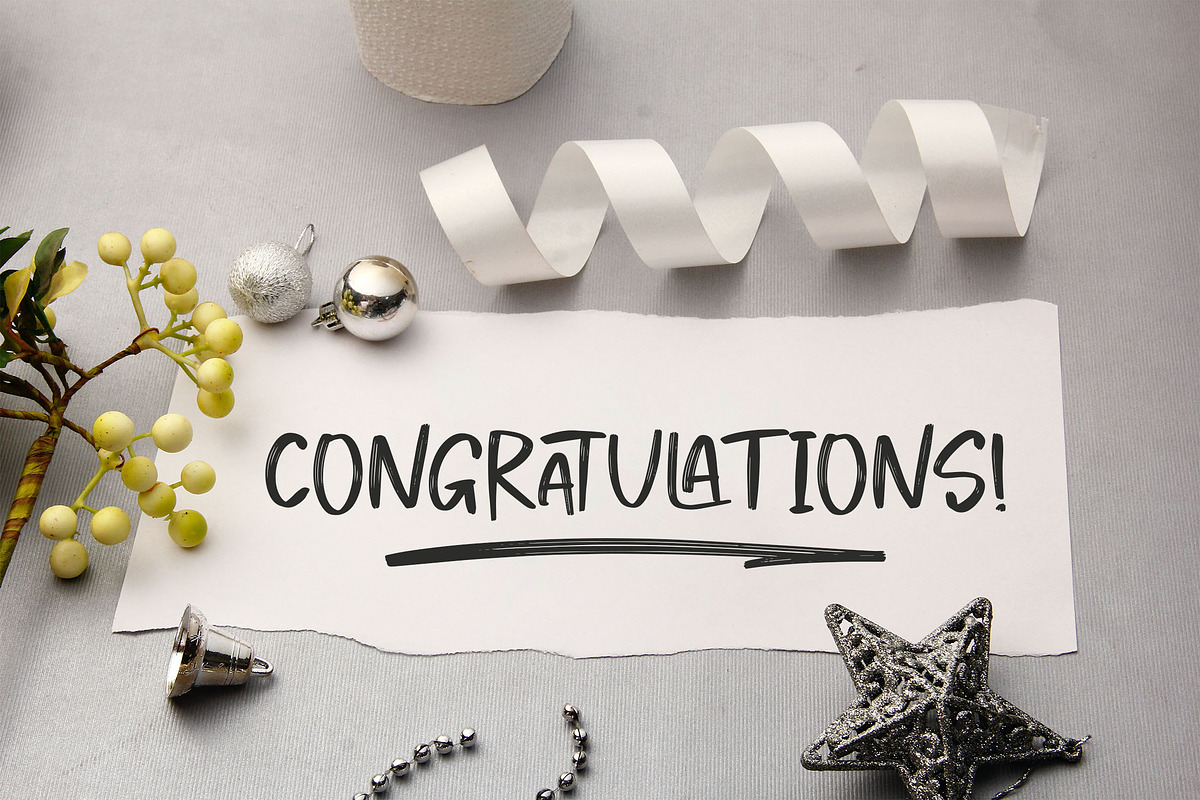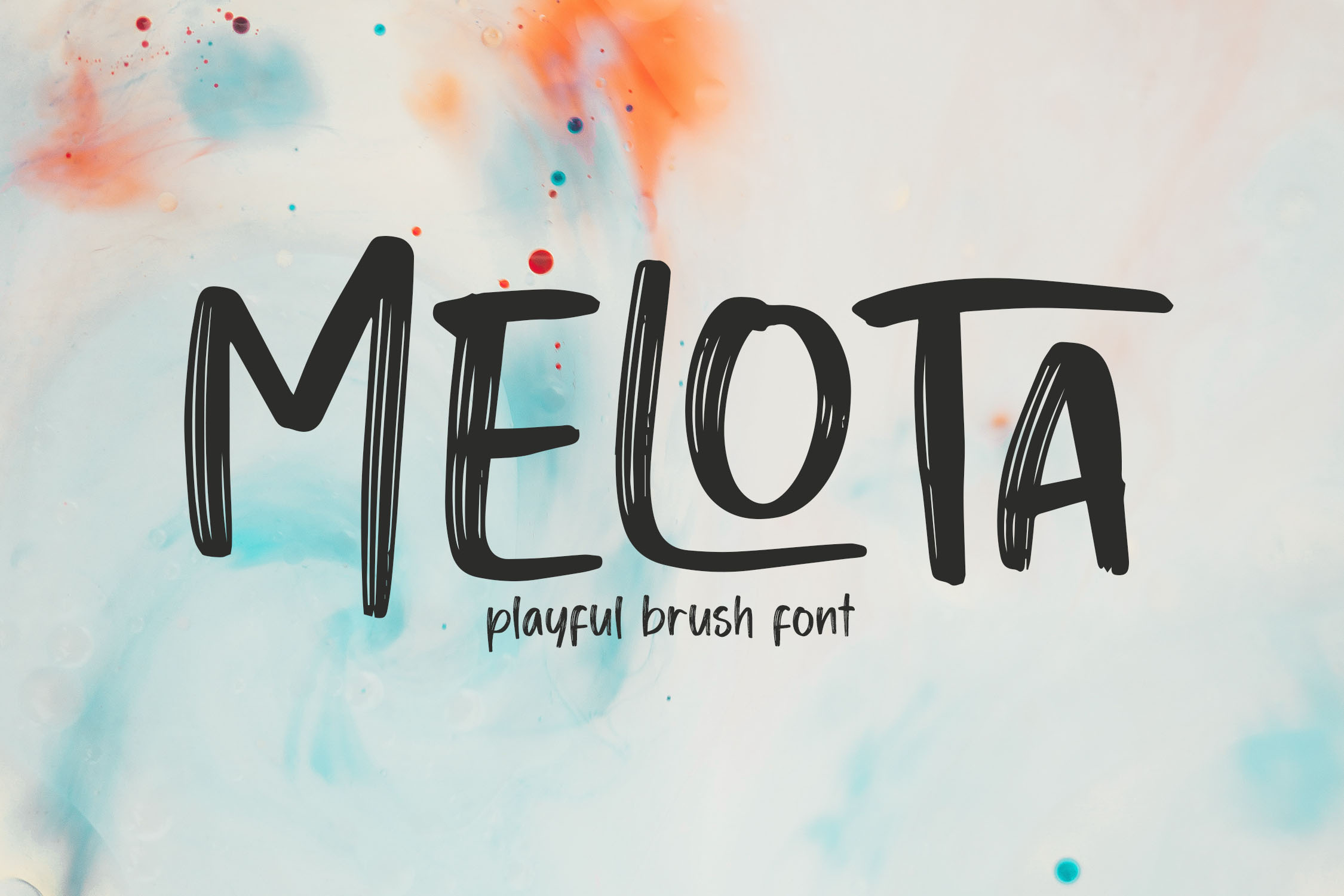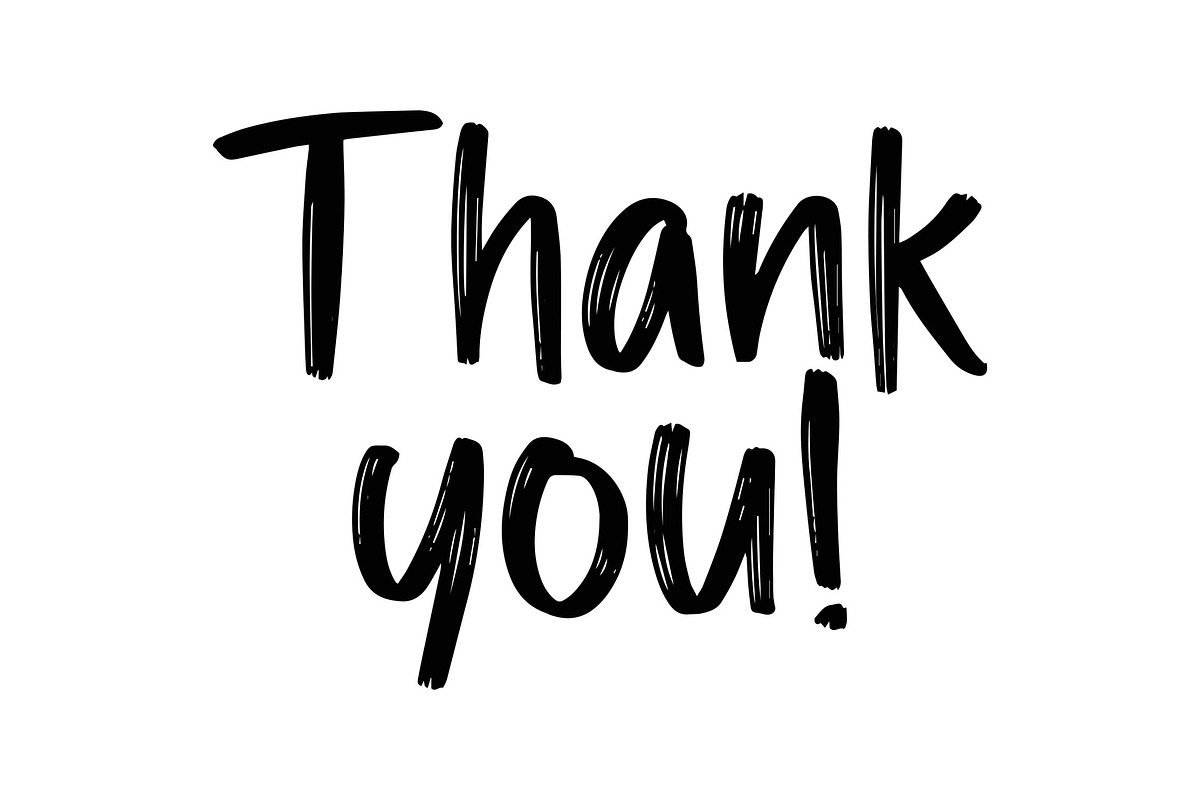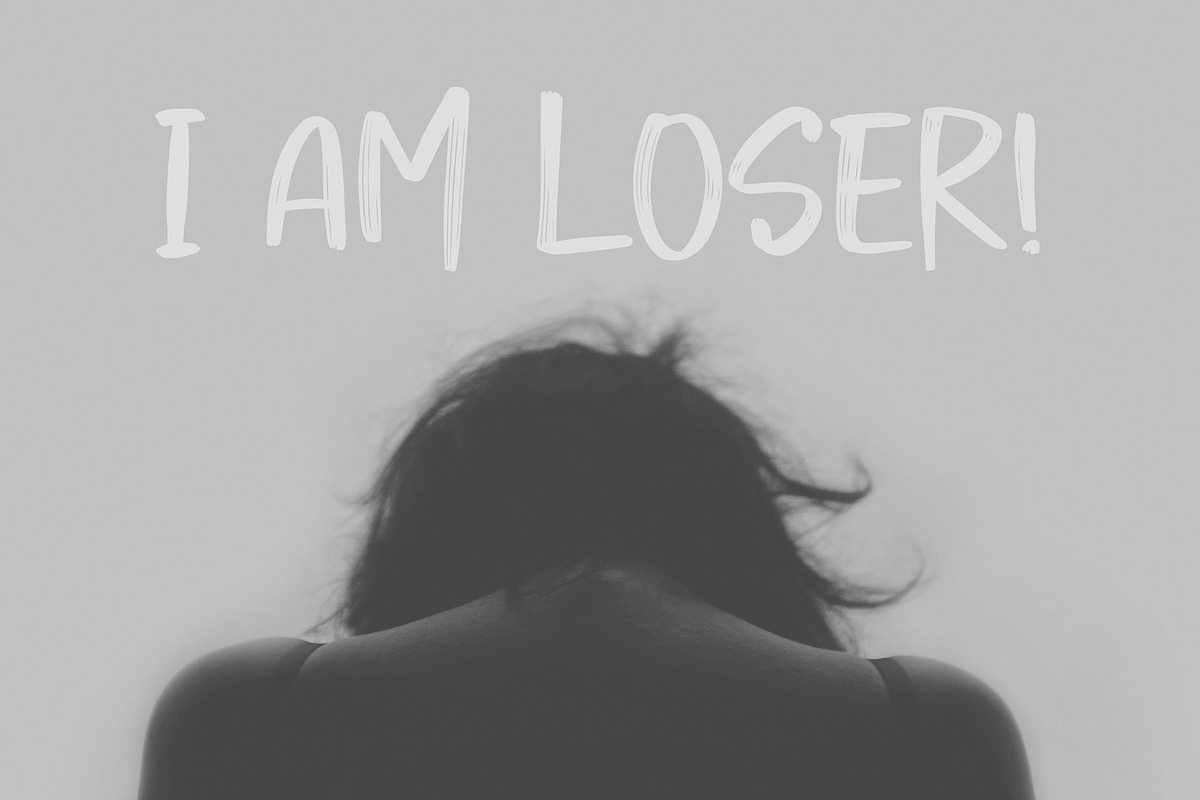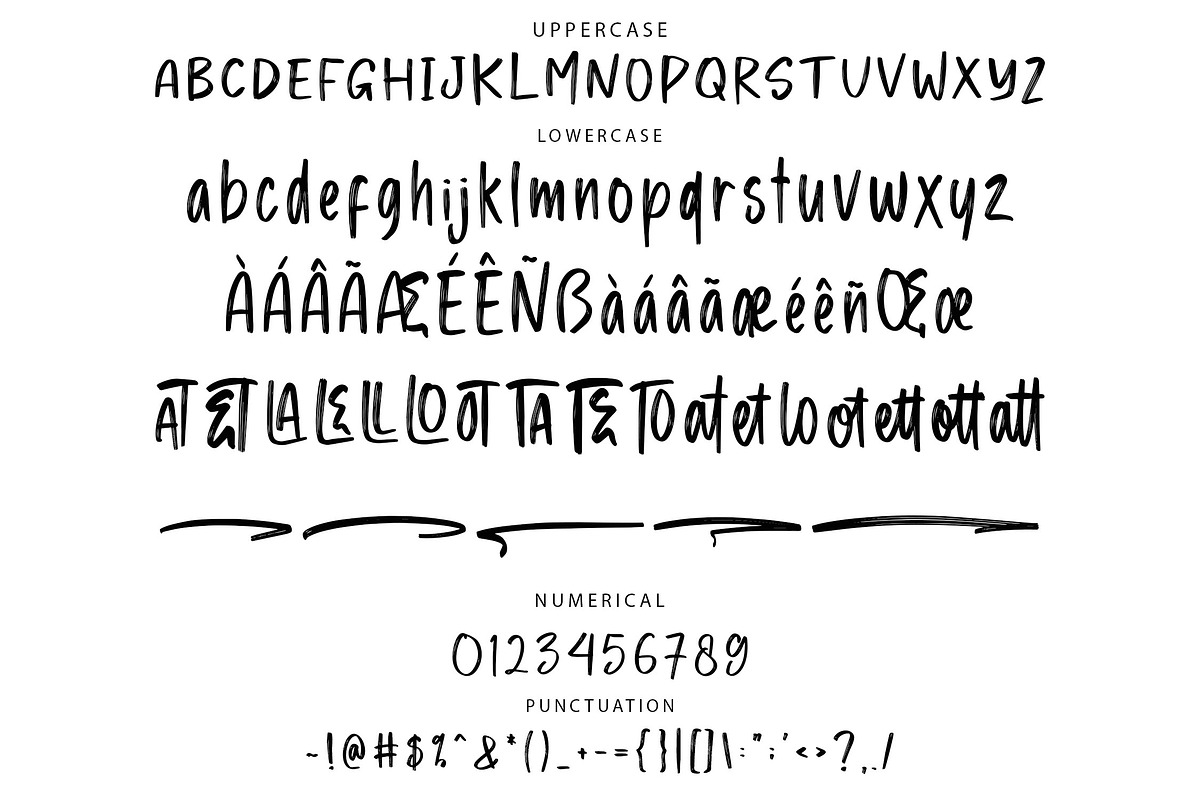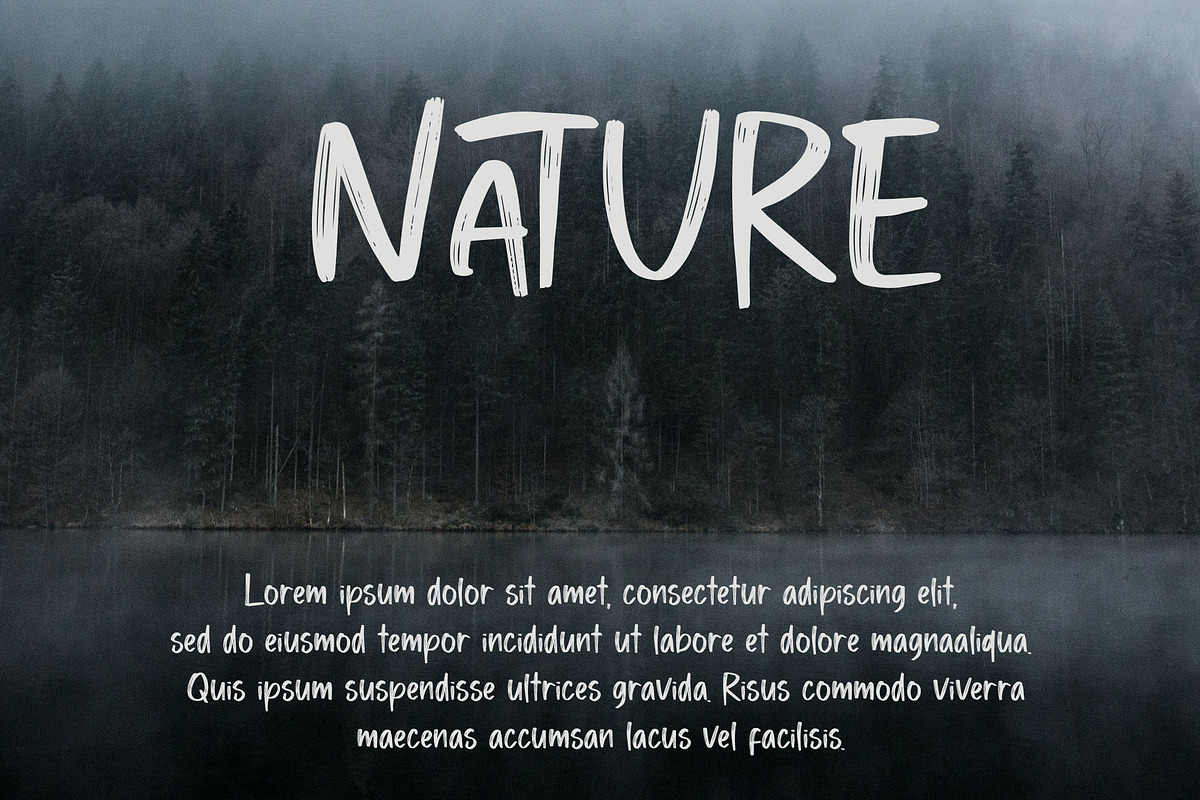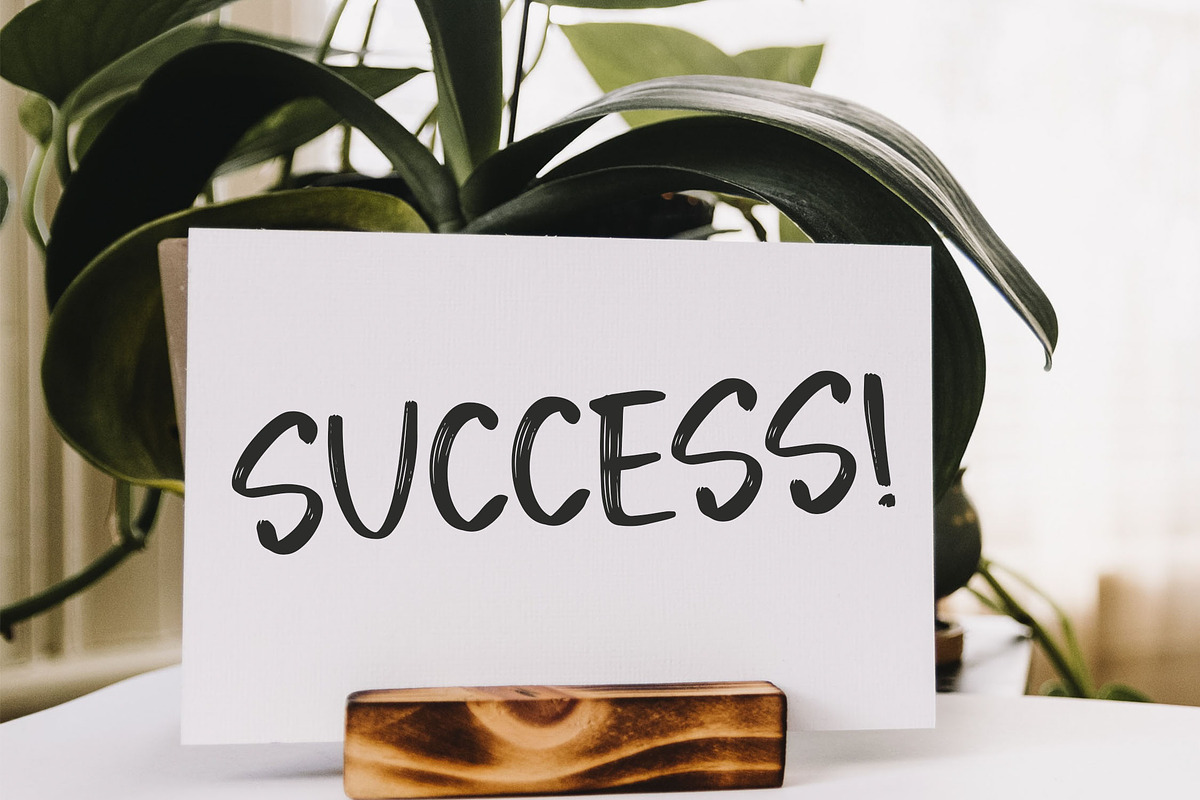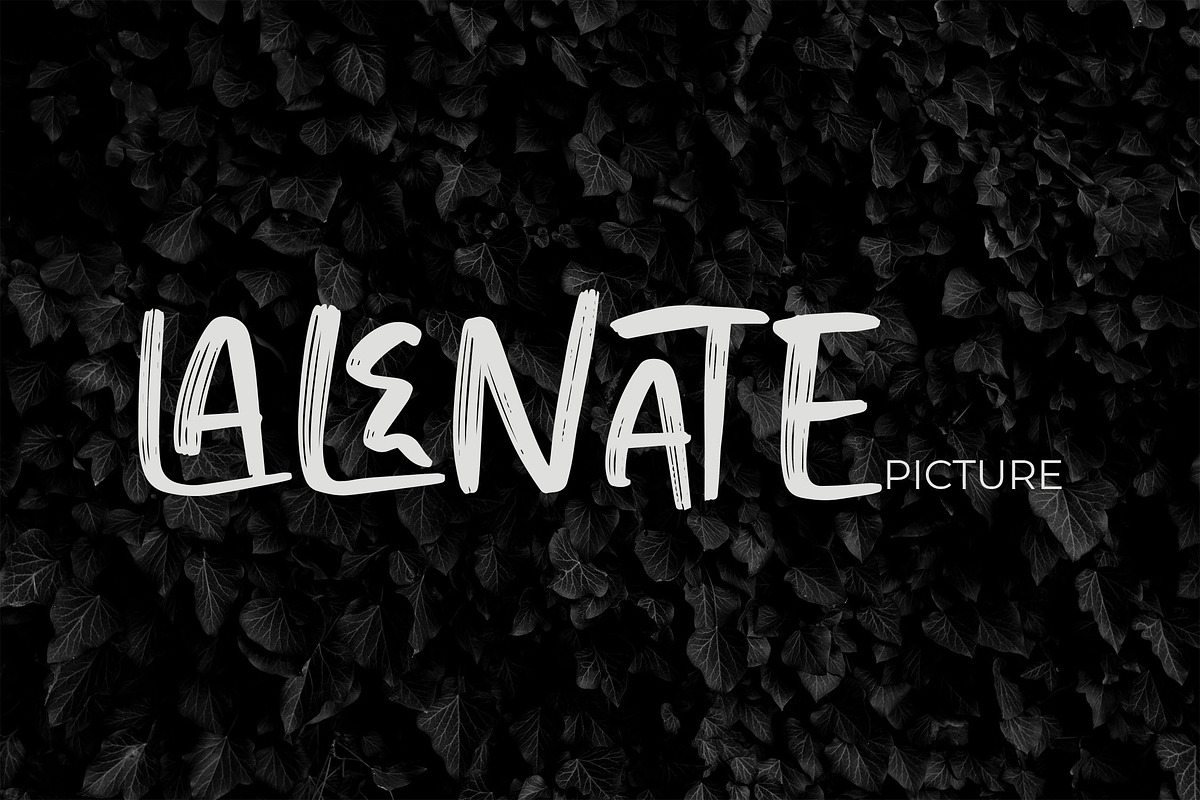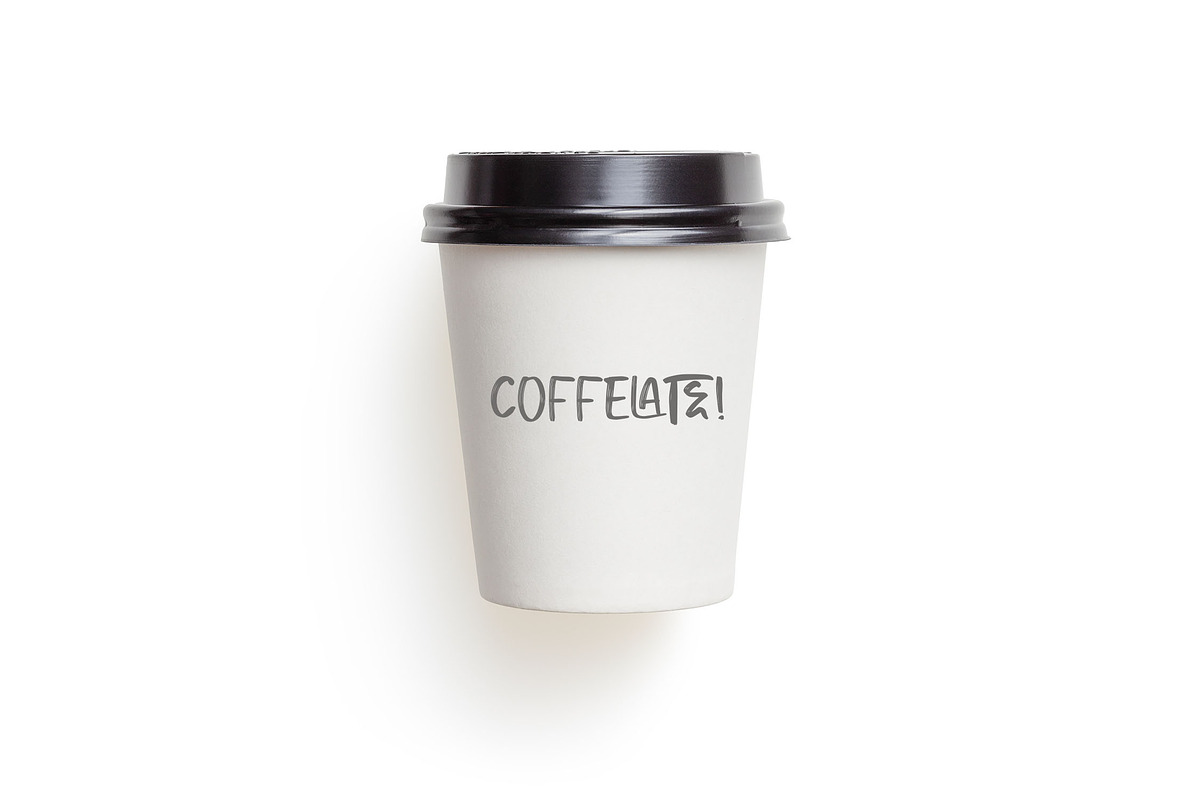
MELOTA Playful Brush Font
MELOTA - Playful Handbrush Font
MELOTA is a delightful and playful font featuring a handbrush style that brings a fun and creative vibe to your designs. With its unique character shapes, MELOTA is ideal for enhancing the visual appeal of branding, packaging, invitations, and various graphic projects.
- Includes ligatures, stylistic alternates, and swashes
- Supports multiple languages for versatile use